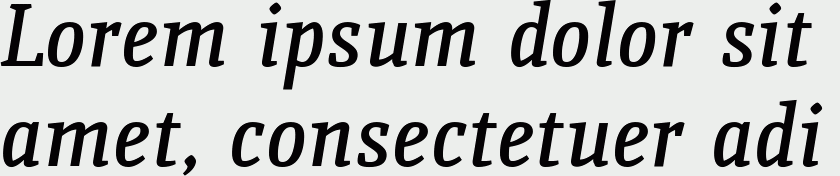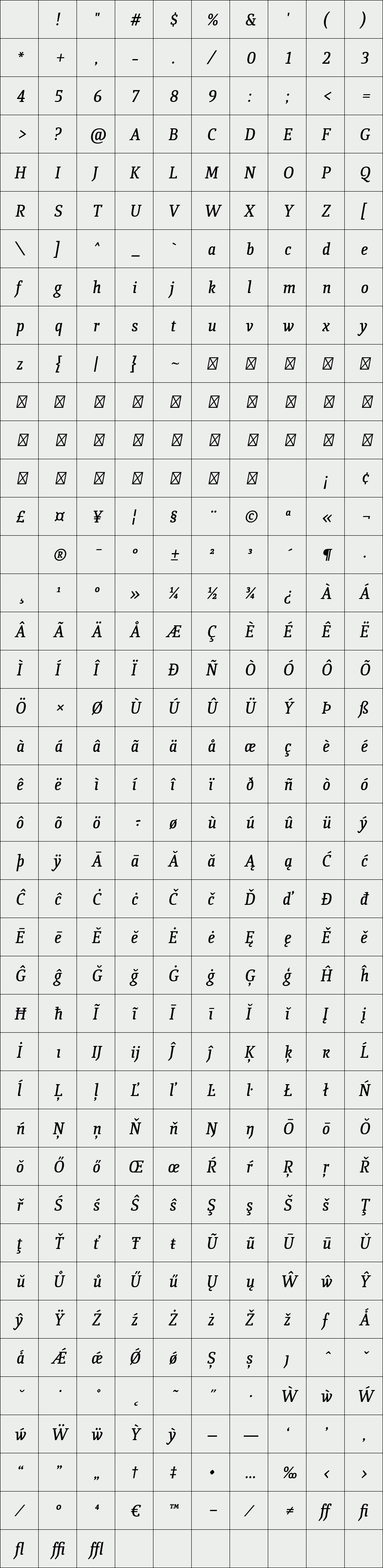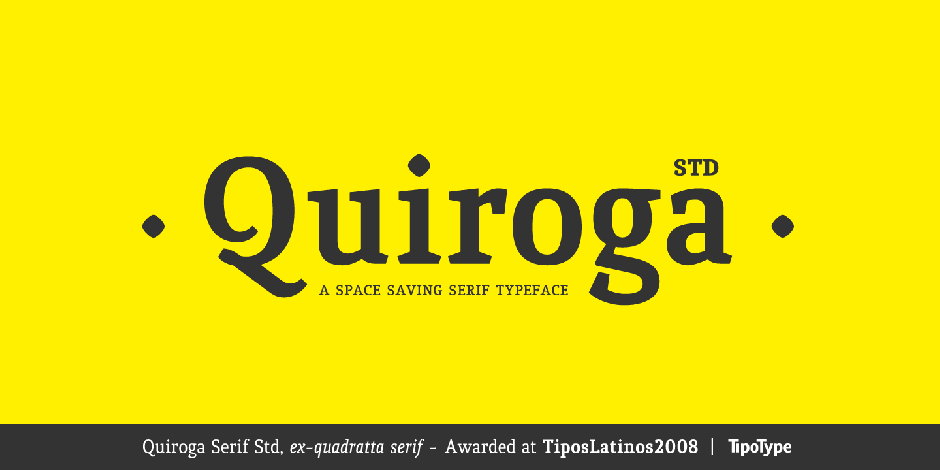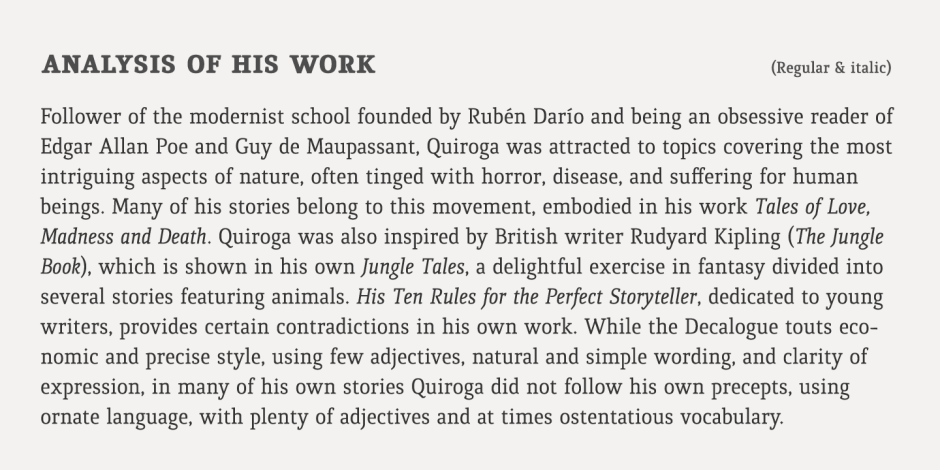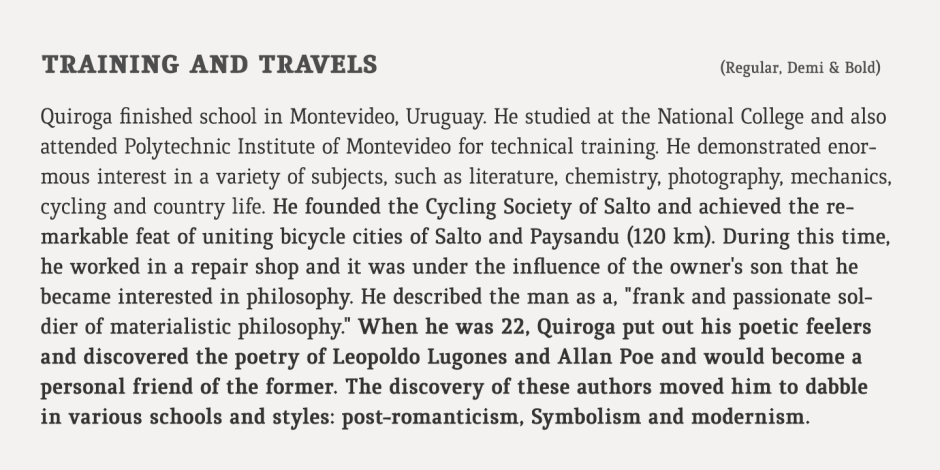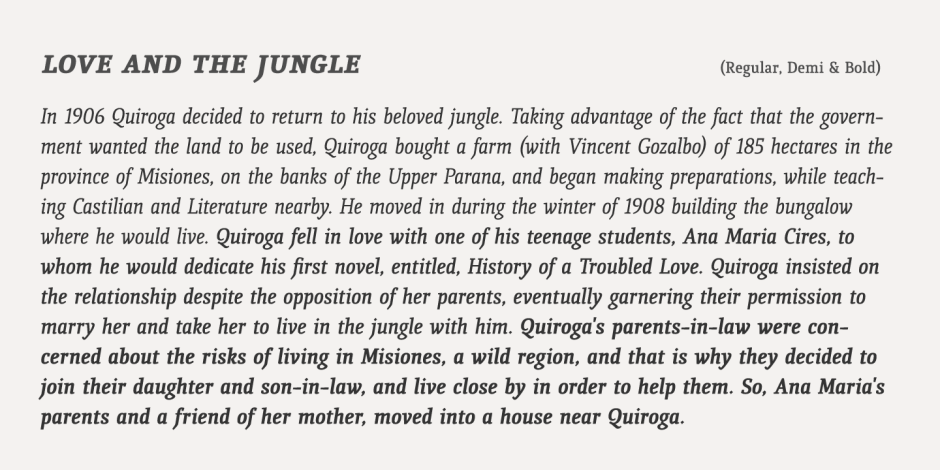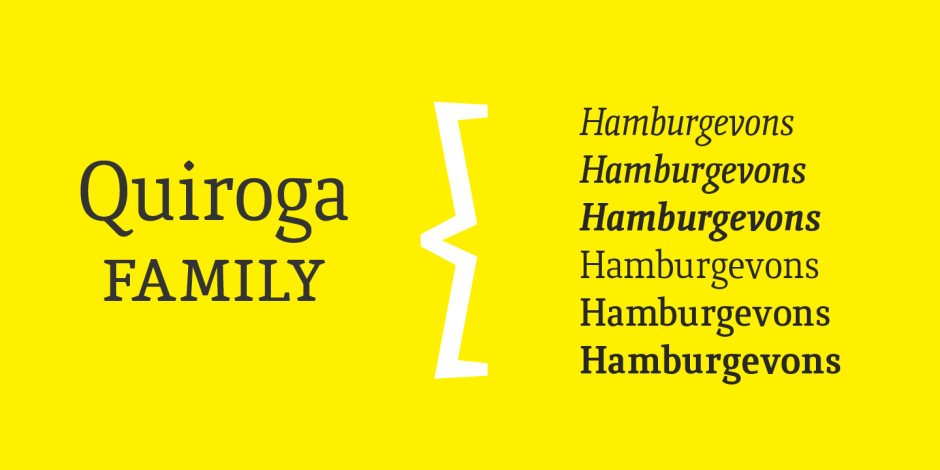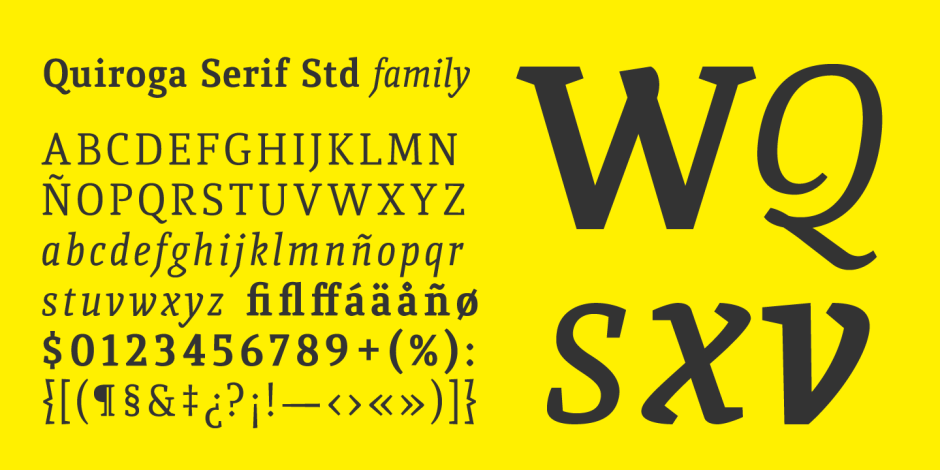
Quiroga Serif Std
/ Quiroga Serif DemiBold Italic
Quiroga Serif began in 2007 with the name Quadratta Serif.
This typography was designed for continuous text, legible at medium and small sizes, with great saving of space, optimized for 6, 8, 10 and 12 points. The morphology is a mix between tradition and innovation; it has a vertical axis, thick serifs, tall x-height, light modulation and a lot of internal space between letters: key to improve legibility at small sizes.
Designer: Fernando Diaz